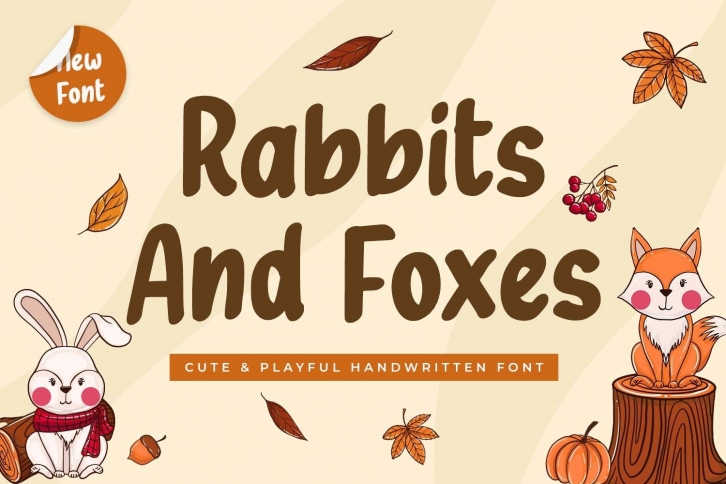
Cute Handwritten is a great font that was designed by Creakokun. Imagine the amount of combinations you can create using this font! The archive is 8.17 MB and it was released on November 18, 2020. Cute Handwritten looks beautiful on wedding invitations, greeting cards, logos, posters, labels, t-shirt designs, logos, business cards and is perfect for use in ink or watercolor works, fashion, magazines, packaging and food menus, children's books and more!